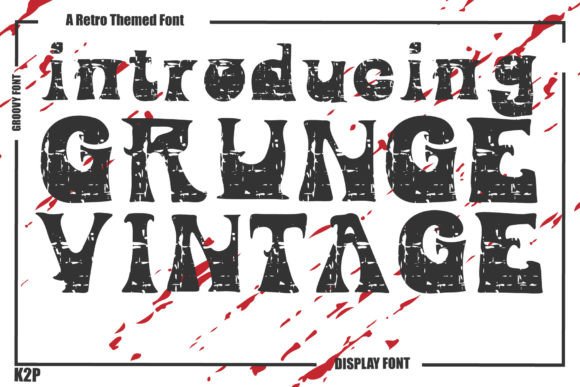
Behold the Grunge Vintage Font, a typographic masterpiece that radiates boldness, coolness, and assertiveness. This serif font is not merely a collection of letters; it's an embodiment of raw energy and dynamic spirit. Unleash your creative potential and let Grunge Vintage take your designs to unprecedented heights. Whether you're a seasoned designer or just starting, this font will captivate you with its versatility.
Visualize your words transformed into captivating headlines that demand attention, or elegant paragraphs that flow effortlessly. Grunge Vintage's unique character adds a touch of intrigue to logos, posters, and branding materials. It's the perfect choice for projects that demand a sense of speed, power, or a touch of nostalgia.
With Grunge Vintage, you'll discover endless possibilities. Experiment with different weights and styles to create distinctive variations that resonate with your unique vision. Its versatility knows no bounds, from sleek and modern designs to retro and vintage-inspired creations. Let your imagination run wild and uncover the hidden potential within this remarkable font.
Immerse yourself in the world of Grunge Vintage and elevate your designs to new heights. Its bold strokes and striking presence will leave a lasting impression on your audience. Embrace the power of typography and let Grunge Vintage ignite your creativity like never before.